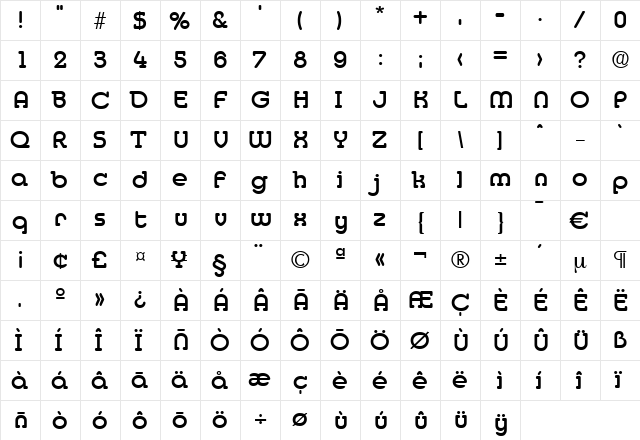
Media-Medium Regular Font Preview
Media-Medium Regular
Design Context for Media-Medium Typeface
Media-Medium takes a measured approach to typography — its balanced proportions and neutral character make it a reliable workhorse for both digital and print work.